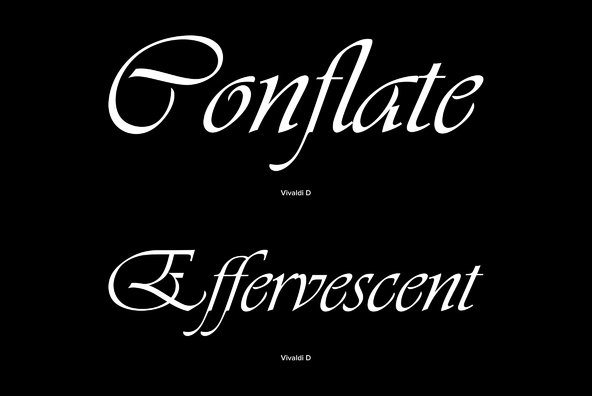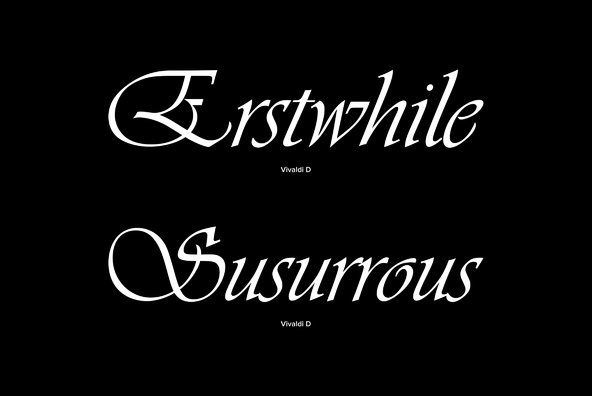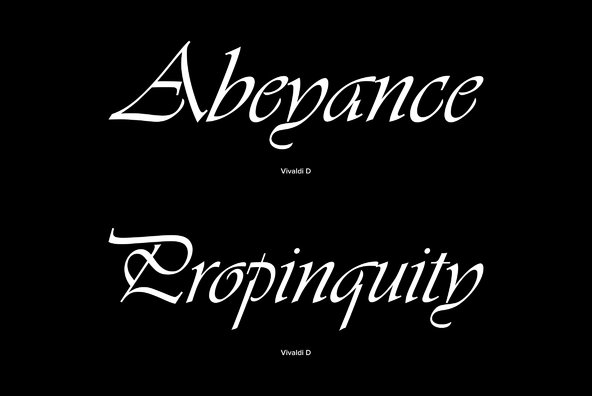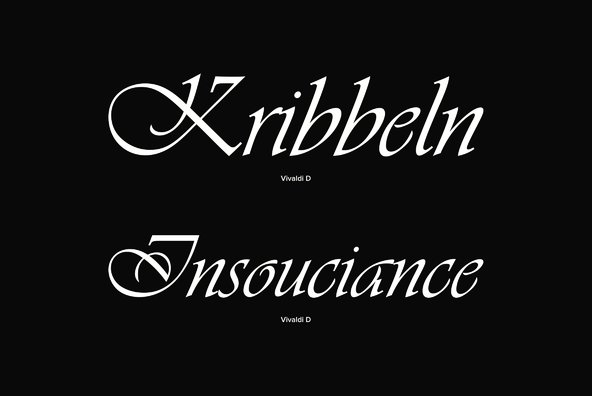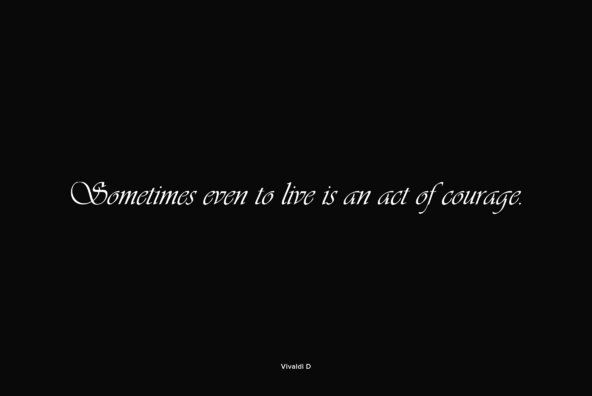
Vivaldi
Designed by Fritz Peters in 1970, Vivaldi is an old style, script font design. Vivaldi works great in formal typesetting such as invite and holiday themed design work.